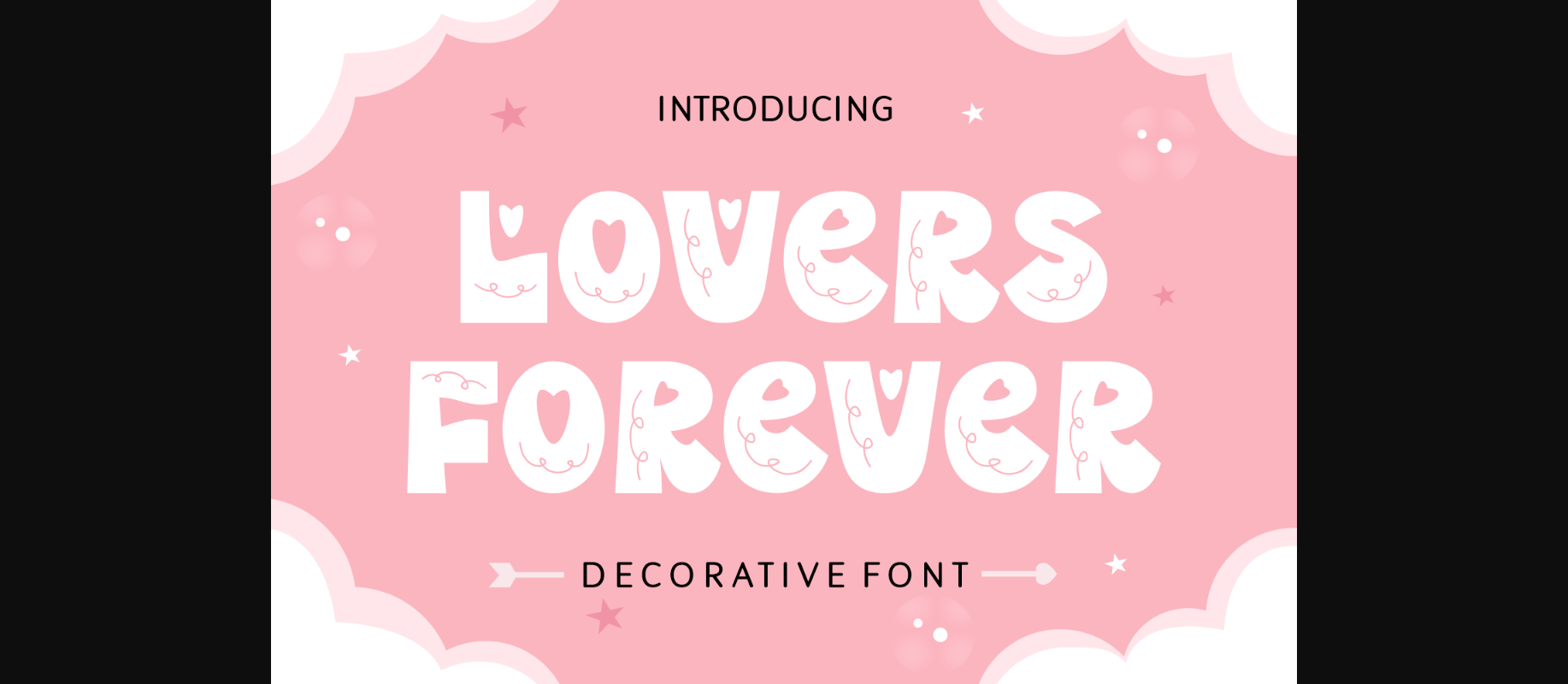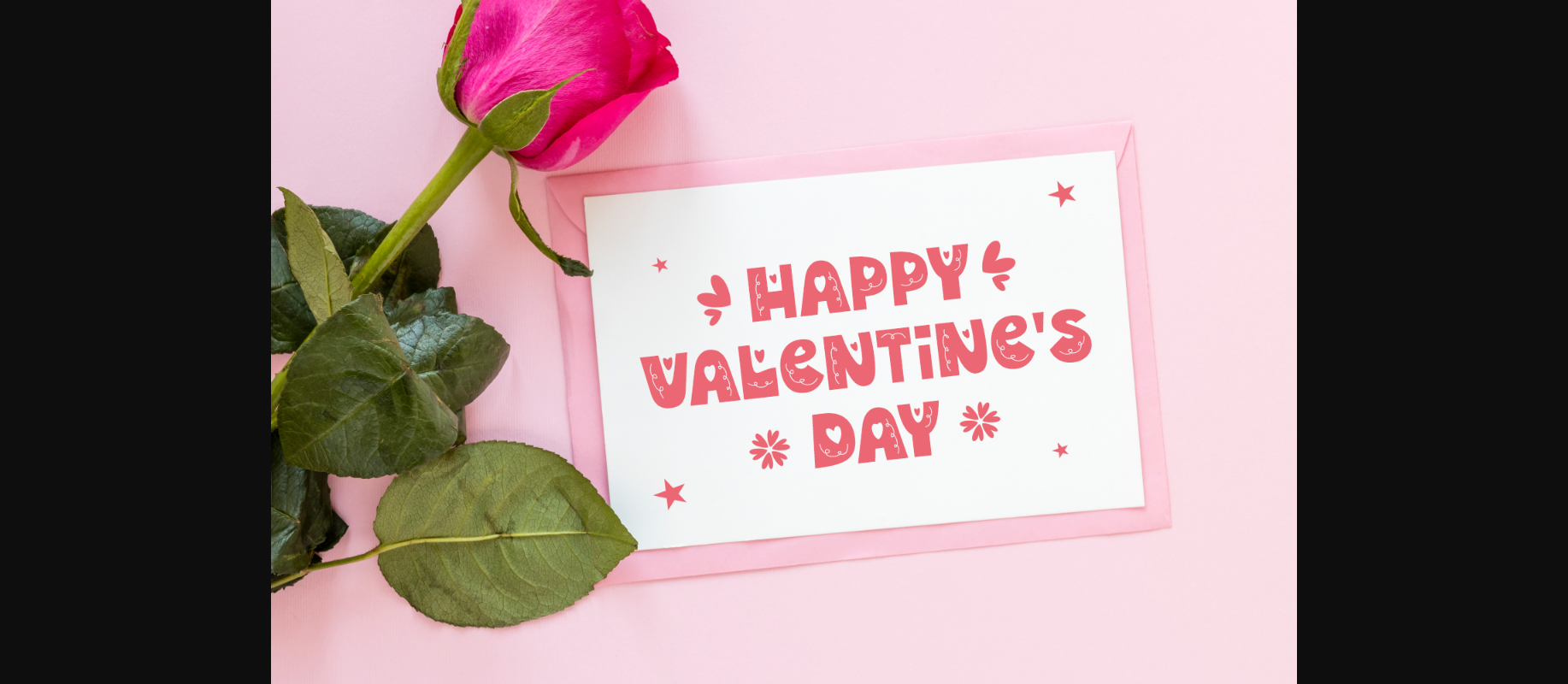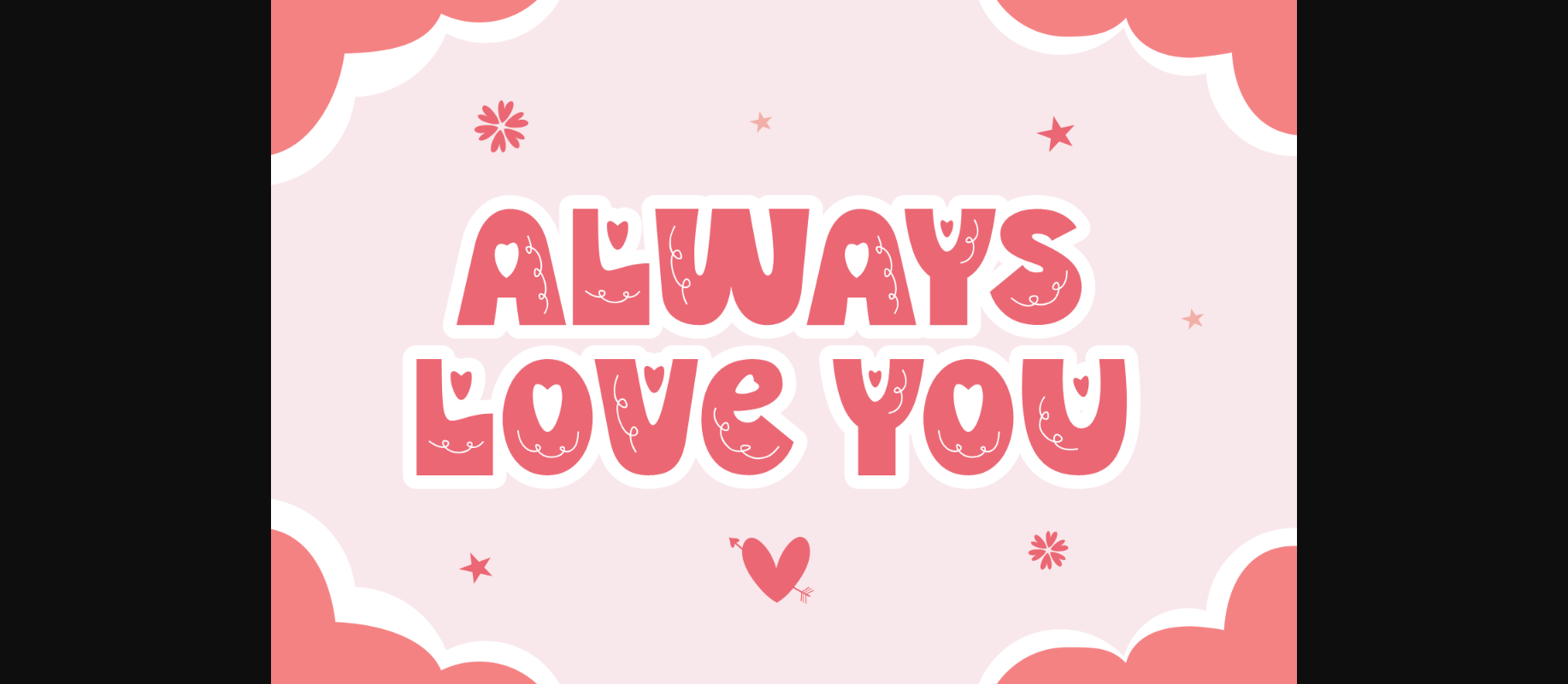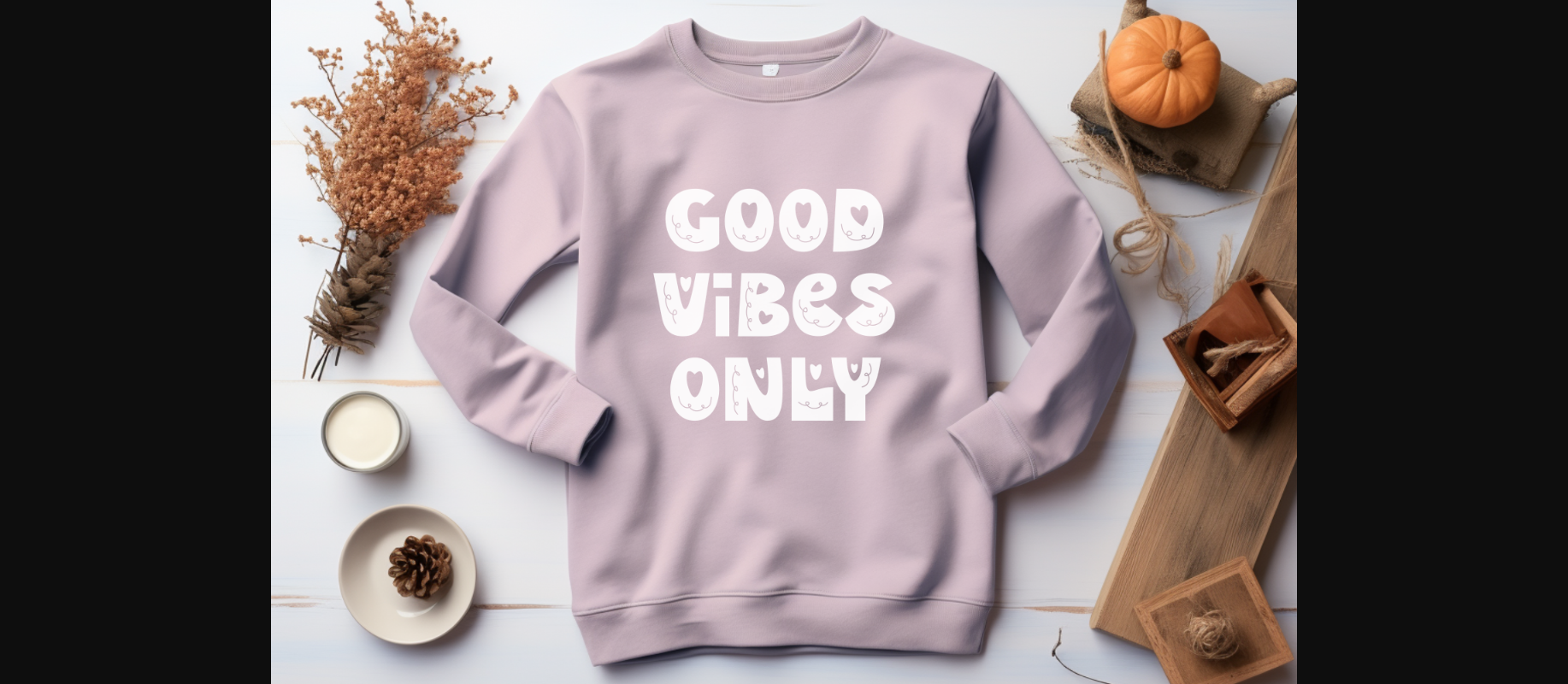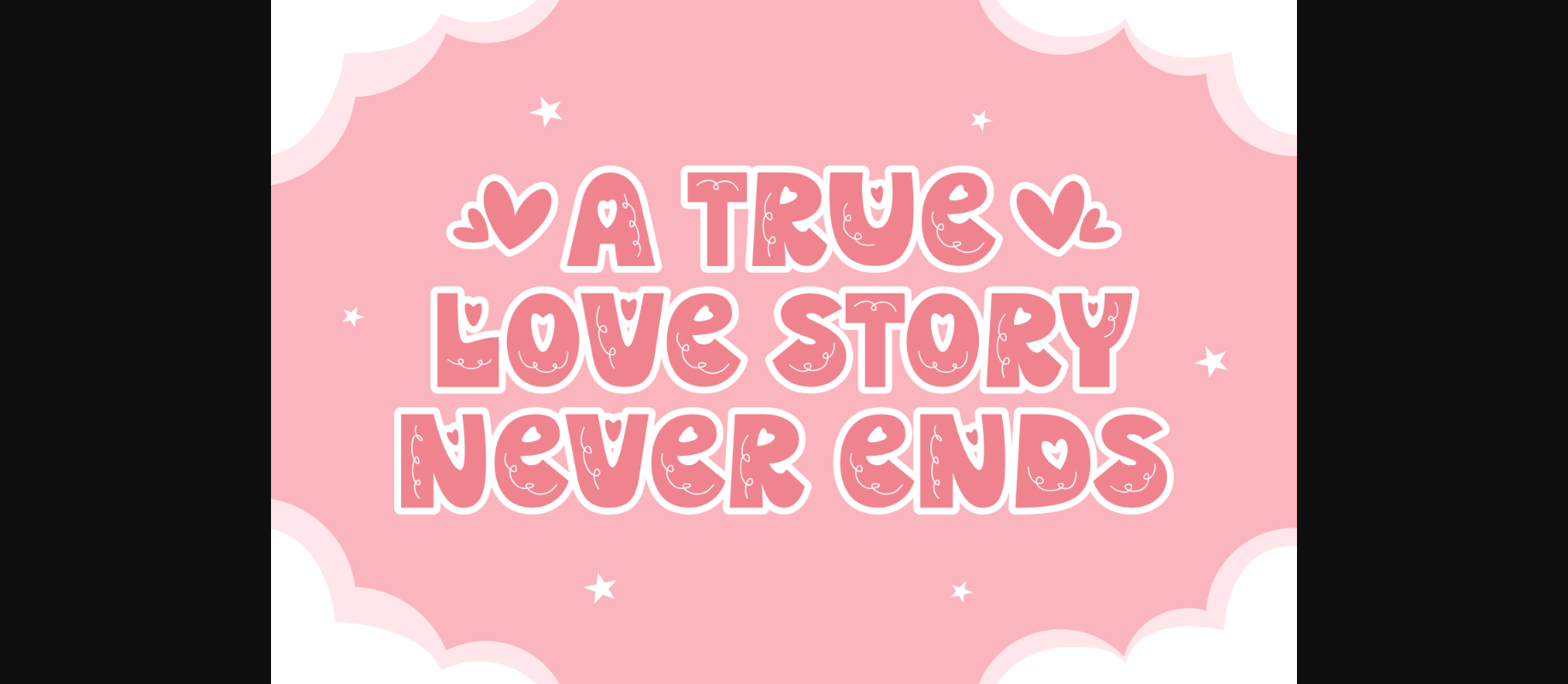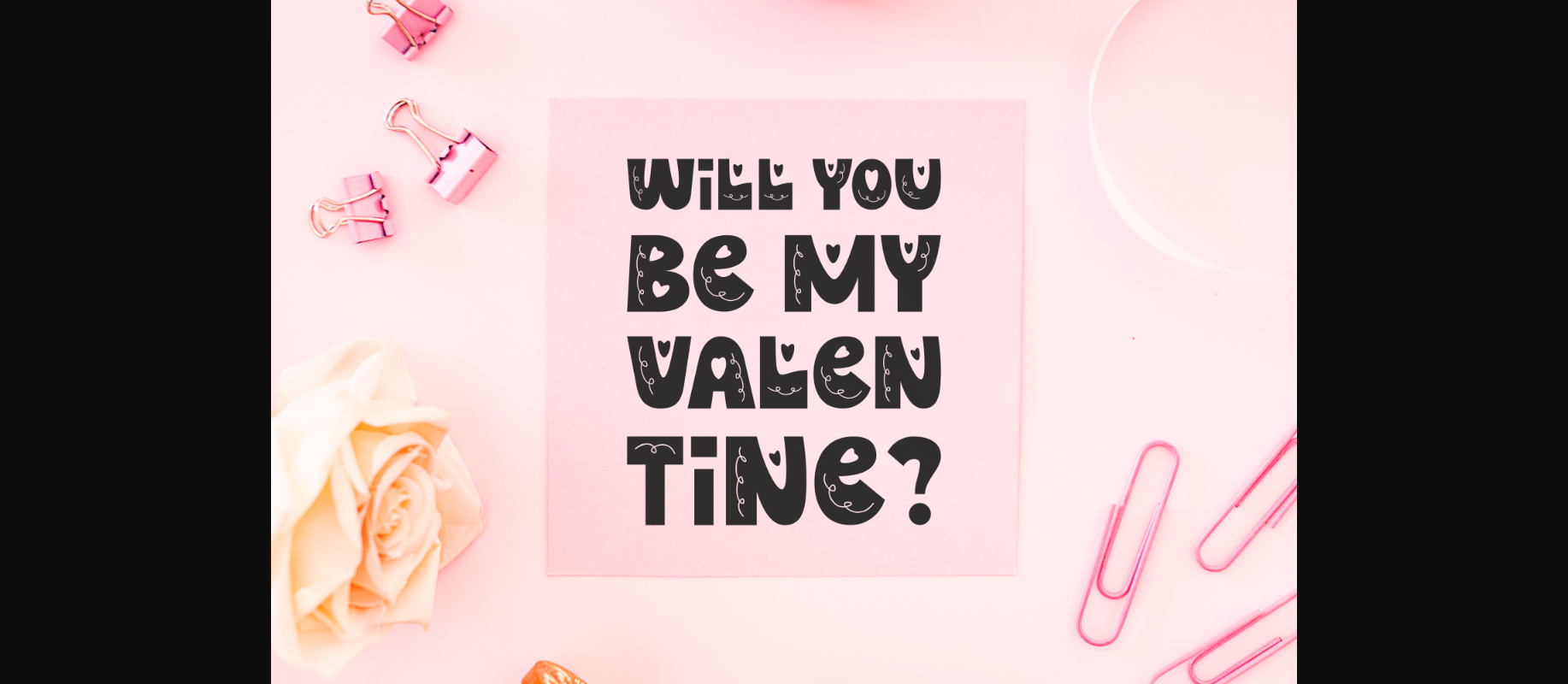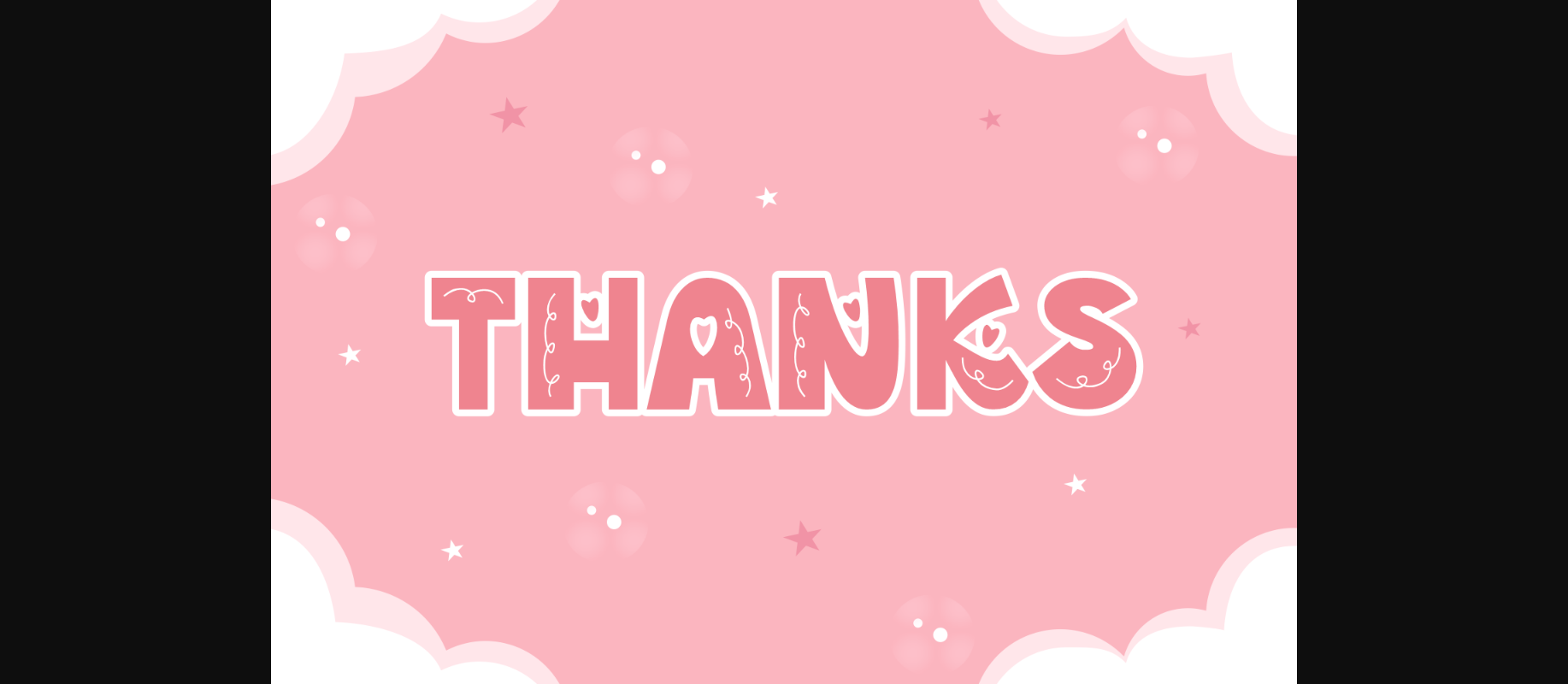
About Lovers Forever Font
Lovers Forever is a delightful and bold decorative font that adds a touch of charm to your designs. Its playful curves and stylish details make it perfect for creating eye-catching headlines, invitations, or any project where you want to convey a sense of love and warmth. With Lovers Forever, infuse your text with a sweet and romantic vibe, making it a standout choice for all your creative endeavors.